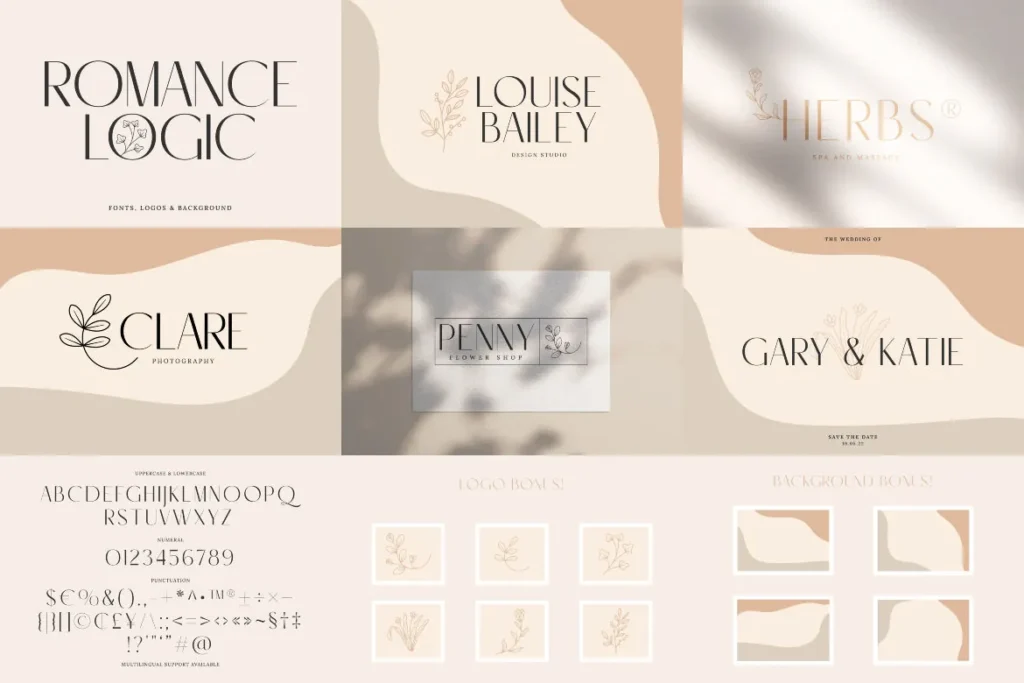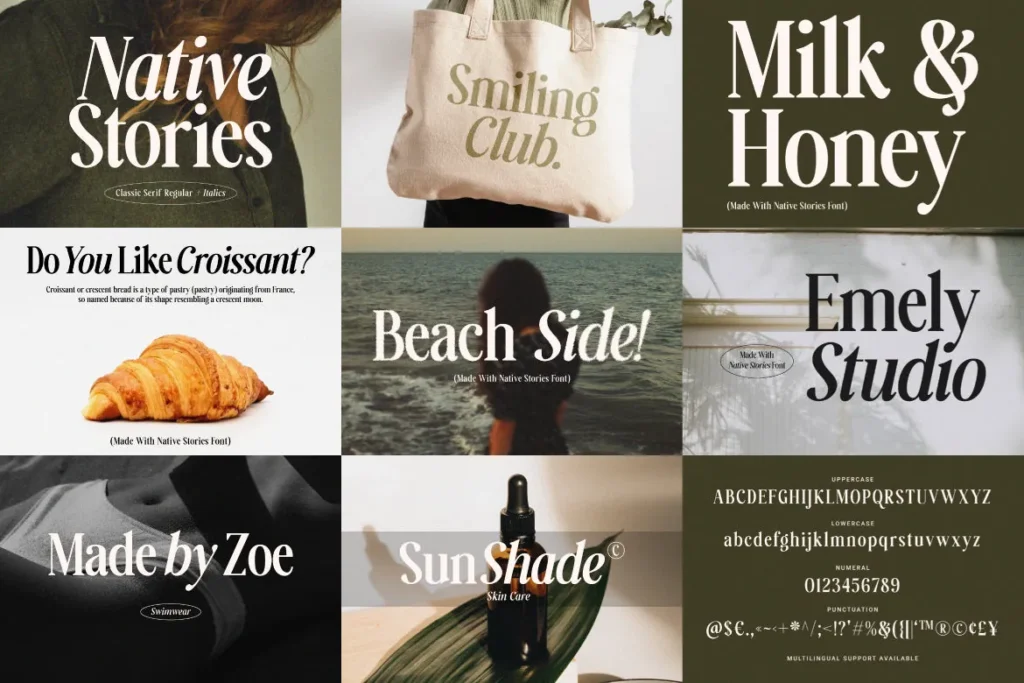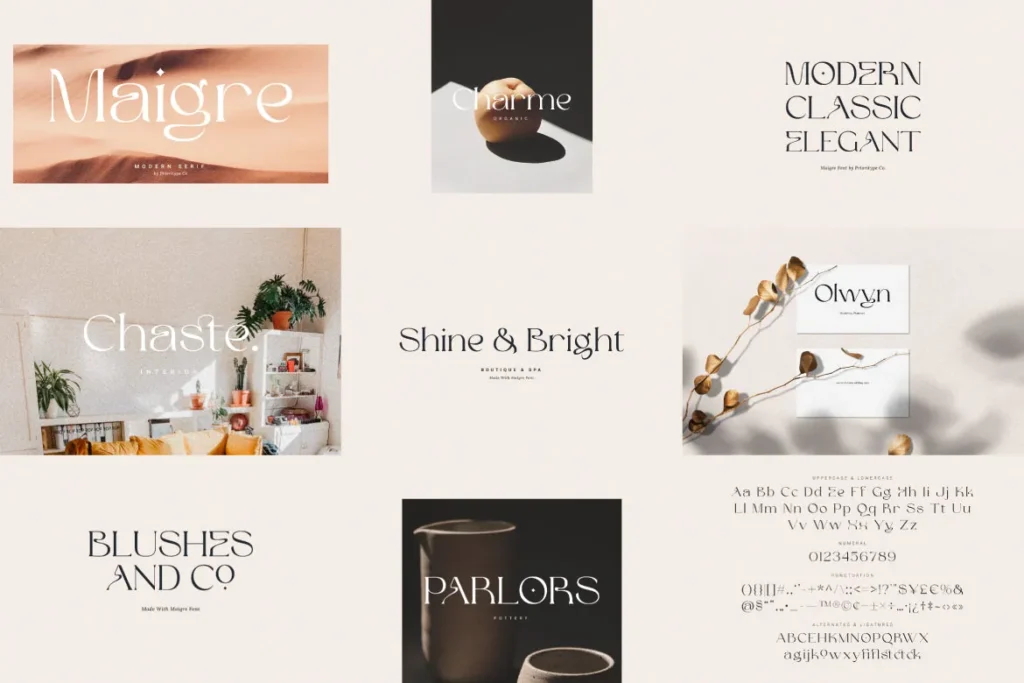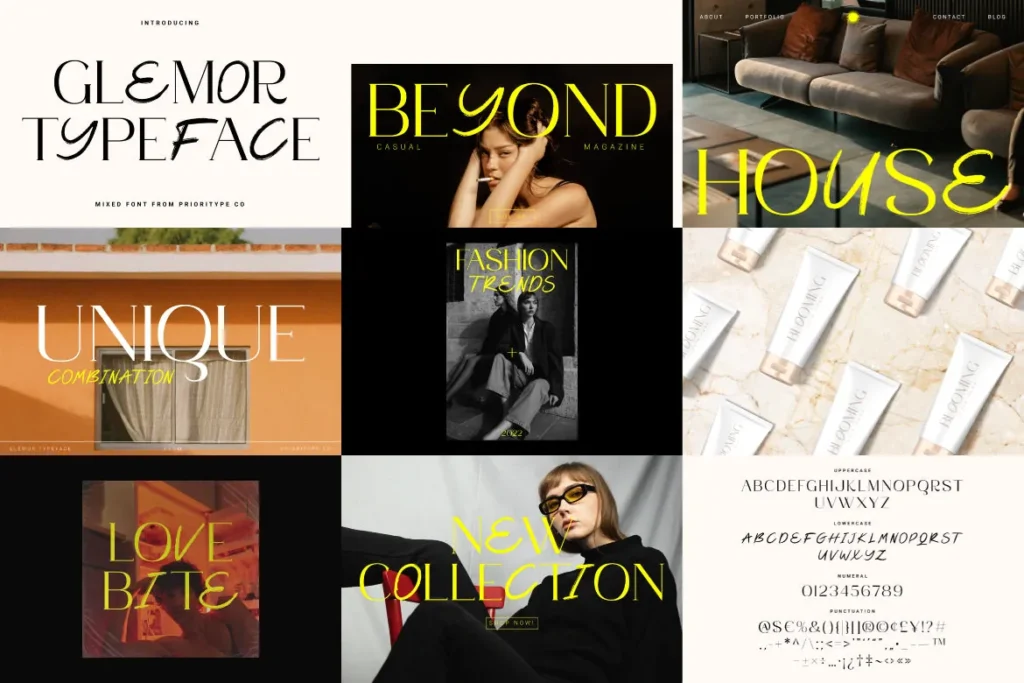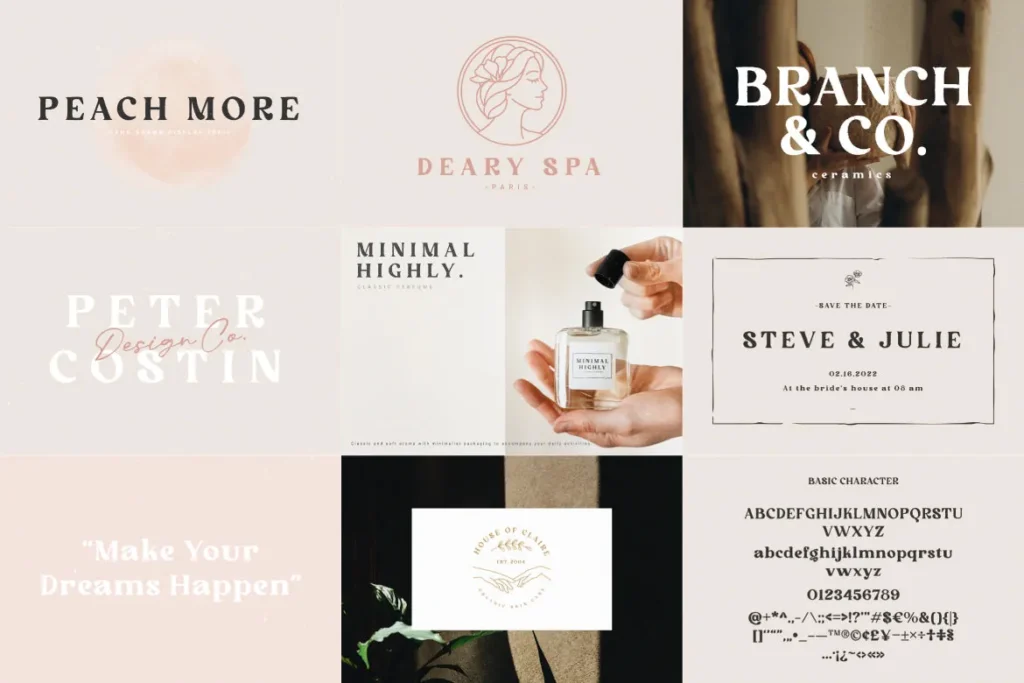
The Modern & Unique Font Bundle #02
The Modern & Unique Font Bundle Vol.02 by Prioritype Co
Contains 16 fonts that you are ready to use for your design projects such as branding, creative posts, logos, wedding invitations, covers and so on.
Font Including:
Maigre – Modern Serif
Treading – Modern Font Duo
Cherla – Chic Serif Font
Peaches Blessed – Font Duo
Favorite Notification
Glemor Typeface
Tropical Lake – Combination Font
Peach More
Romance Logic
Native Stories – Classic Serif Font
Codigra – Modern Retro Font
Brume Matinale Font
Sunday Bloom
Niblick – Display Font
Employed – A Display Serif Font